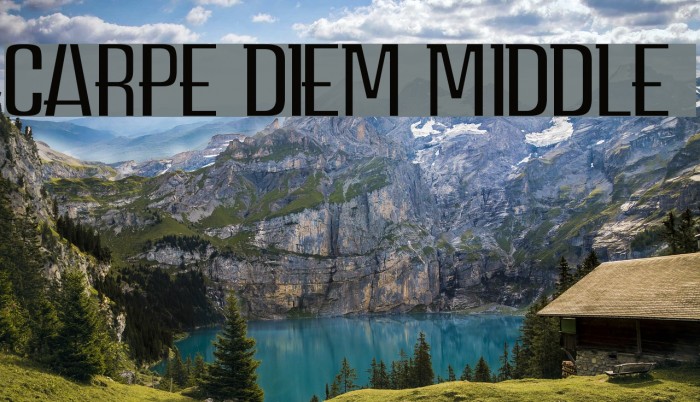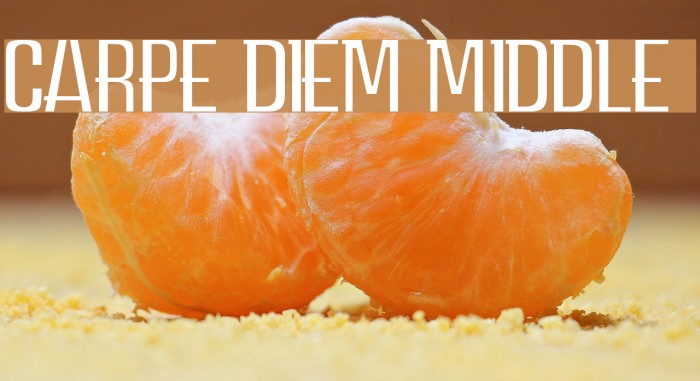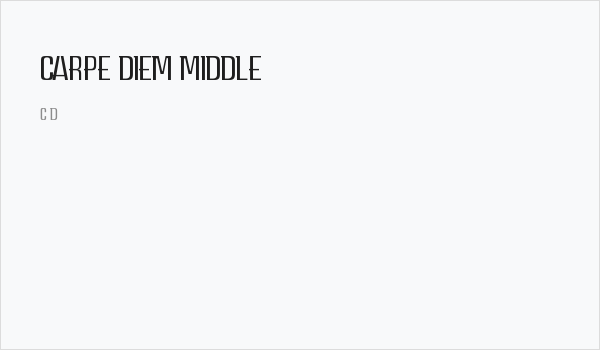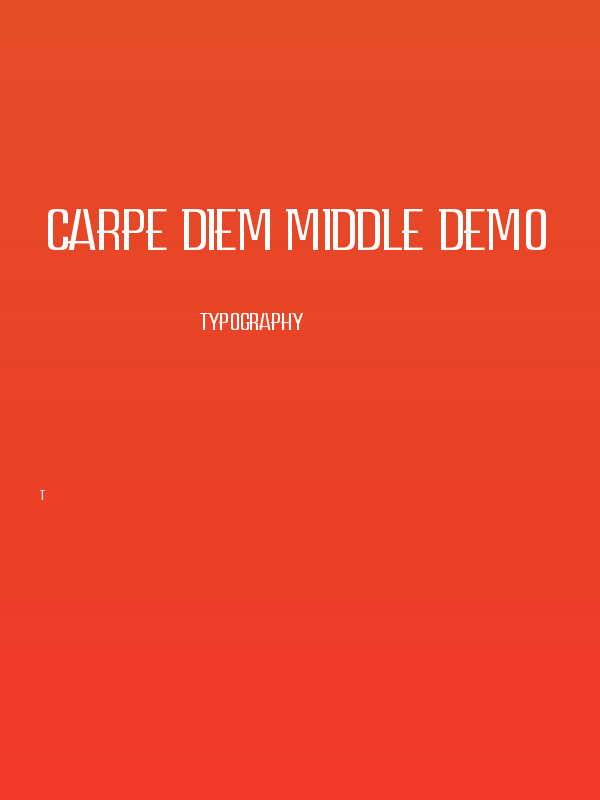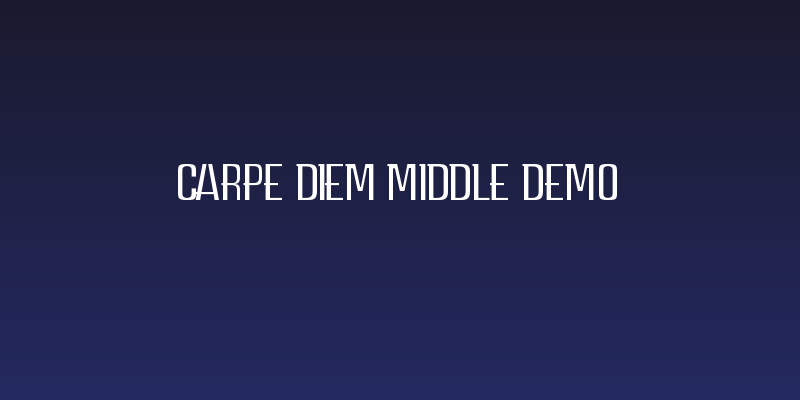
CARPE DIEM MIDDLE demo Font
CARPE DIEM MIDDLE demo Description
This font features a modern and sleek design with tall, narrow characters that exhibit a strong vertical emphasis. The strokes are consistent in width, giving it a uniform appearance. The uppercase letters are distinct with sharp angles and clean lines, contributing to a contemporary aesthetic. The font's geometric structure and minimalistic style make it suitable for a variety of design applications. Its legibility and clarity are enhanced by the even spacing between characters, which maintains readability even at smaller sizes.